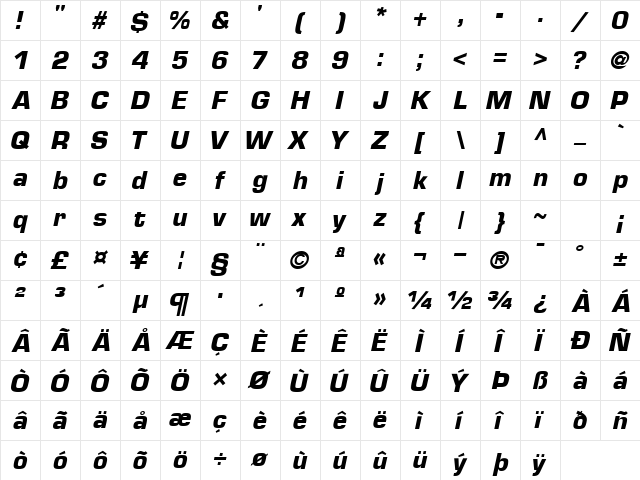
PalindromeBlackSSK Italic Free Font
PalindromeBlackSSK Italic
Design Context for PalindromeBlackSSK
PalindromeBlackSSK is a composed and adaptable typeface that performs quietly and consistently across a wide range of design contexts. The slanted form adds forward momentum and visual energy.
Pro Tip: Use PalindromeBlackSSK for emphasis, pull quotes, and subheadings where its slanted energy can add rhythm to the layout.